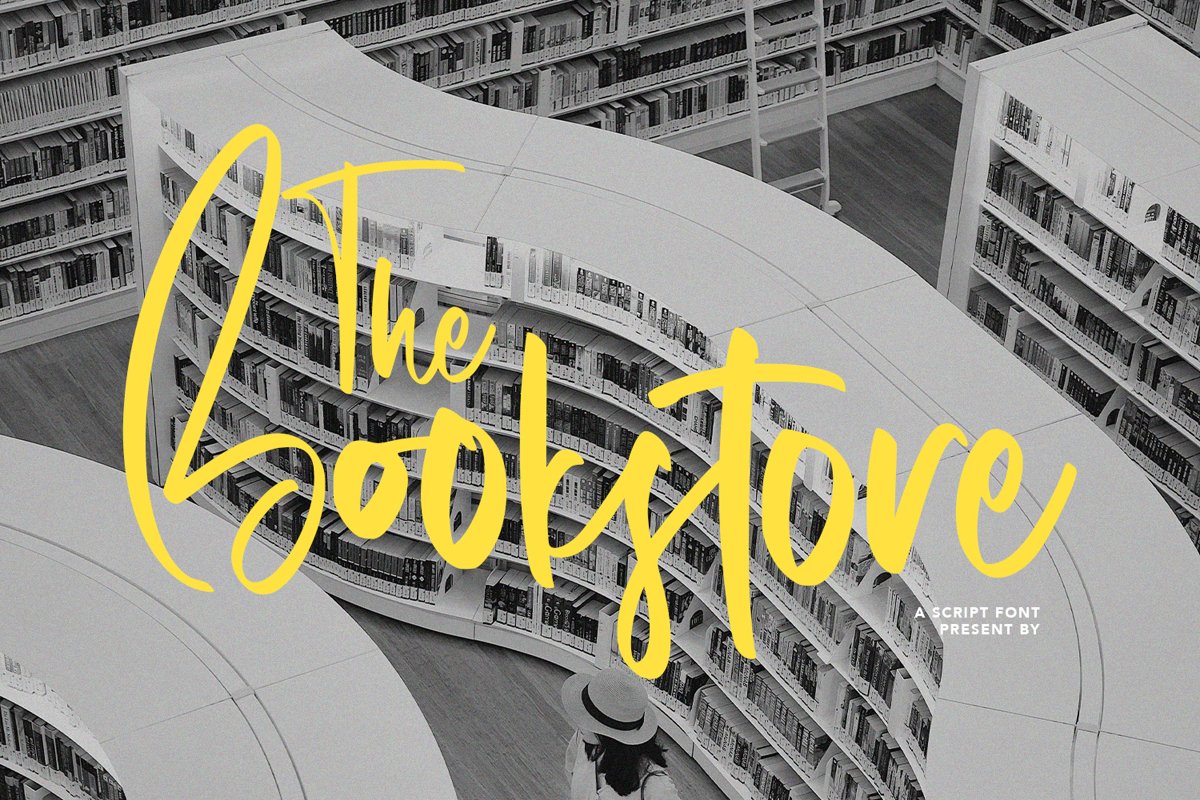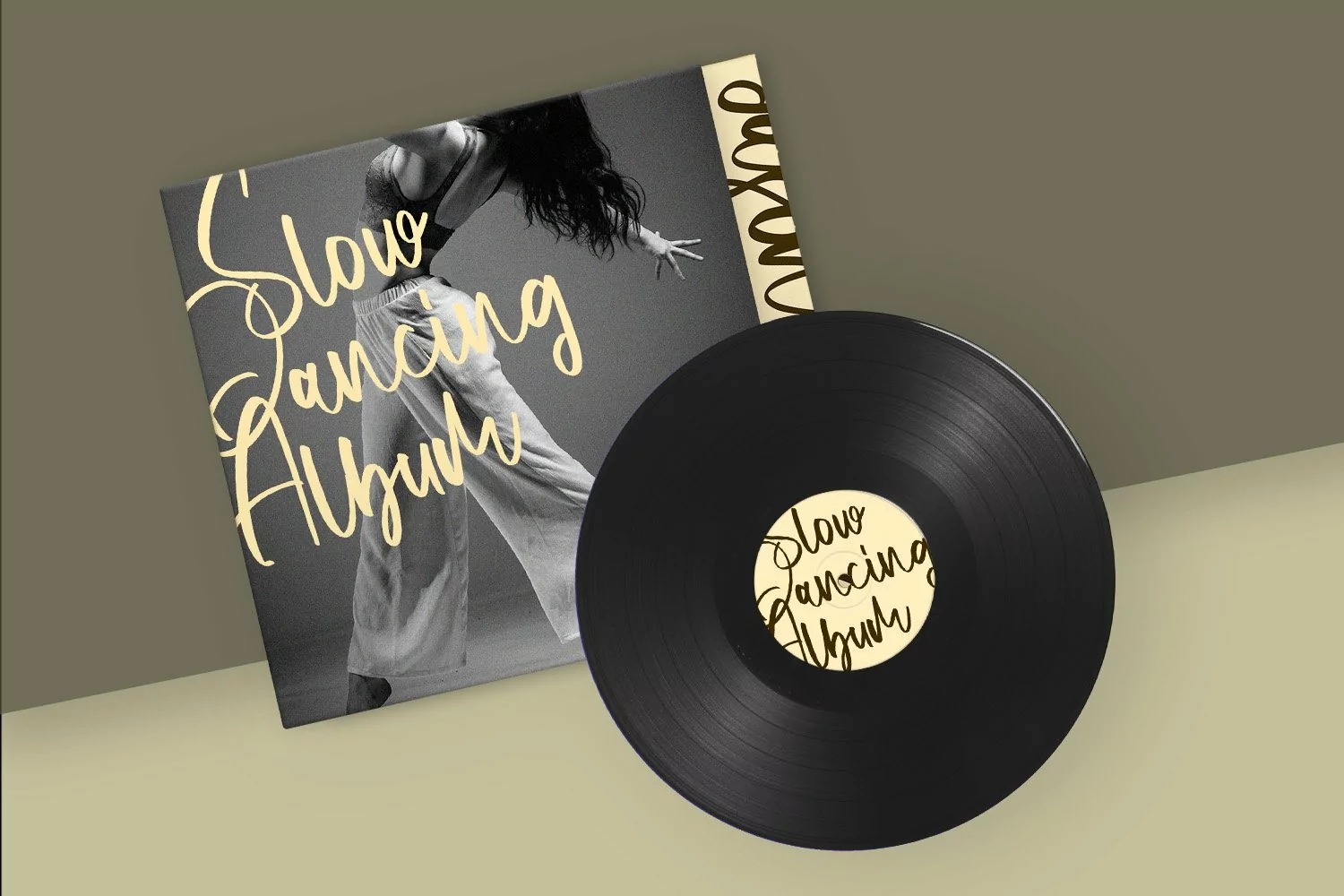
Bookstore - A Script Font that contain lowercase, uppercase, symbol, and also support multi language. There’s a lot ligatures in this font. This Font also comes with ligatures, alternates and many more. this font suitable for fashion, branding, catalog and other design what you want.
Bookstore